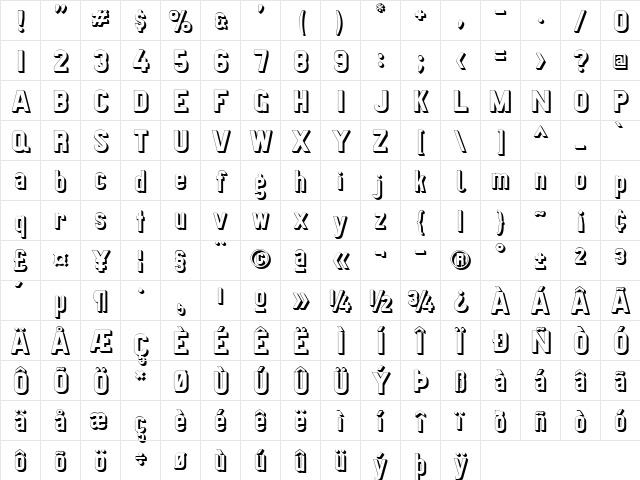
Preussische VI 9 Schatten Regular
Foundry: Peter Wiegel
Designer: Peter Wiegel
Design Context for Preussische VI 9 Schatten
Preussische VI 9 Schatten is a composed and adaptable typeface that performs quietly and consistently across a wide range of design contexts.